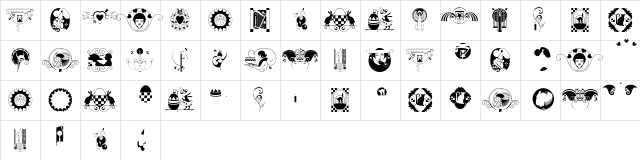
JungeHolidayCutsNF Regular Free Font
JungeHolidayCutsNF Regular
Foundry: Nick's Fonts
Designer: Nick Curtis
Design Context for JungeHolidayCutsNF
JungeHolidayCutsNF is a composed and adaptable typeface that performs quietly and consistently across a wide range of design contexts.